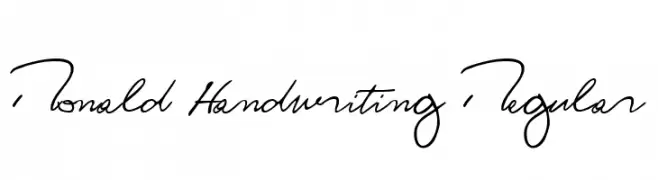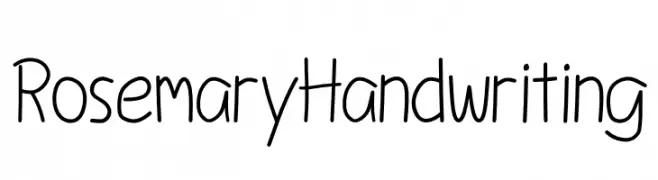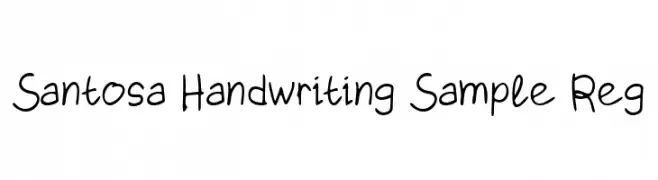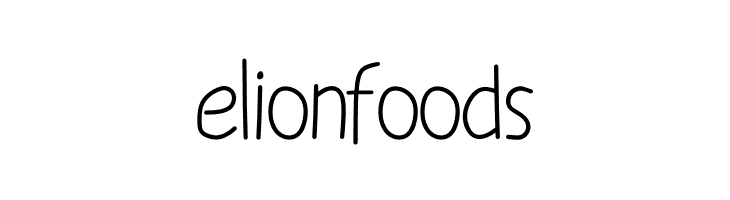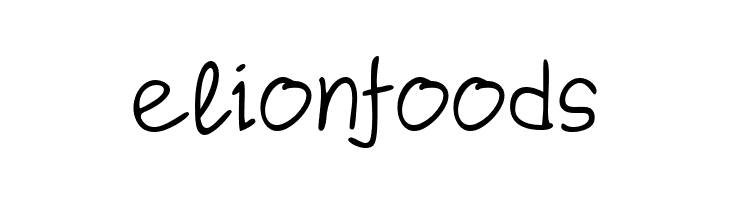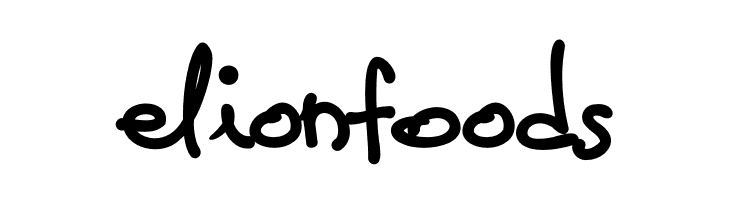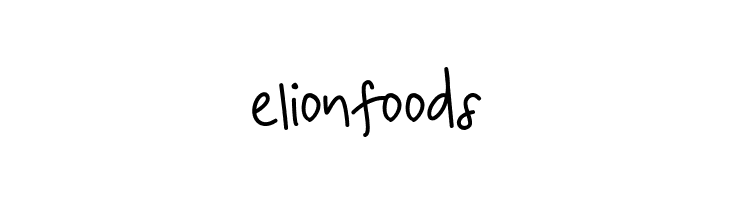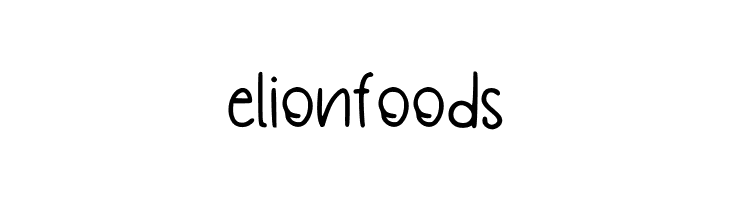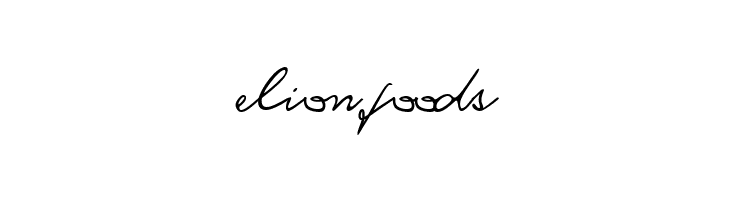
A lively and expressive handwritten font with dynamic strokes and artistic flair.
A playful, casual handwritten font with smooth, flowing lines.
A playful, casual handwritten font with rounded, consistent strokes.
A modern, handwritten font with elegant, flowing lines and a personal touch.
A playful, casual handwritten font with smooth, flowing lines.
A casual and flowing handwritten script with elegant connections.
A bold, playful handwritten font with a casual, artistic style.
A playful, casual handwritten font with smooth, rounded strokes.
A playful, handwritten-style font with a friendly and informal appearance.
A fluid and expressive handwritten style with a personal touch.